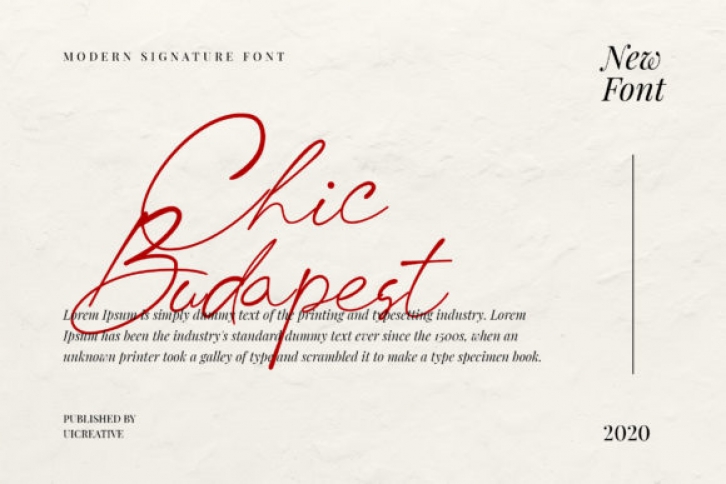
Chic Budapest is a cursive and thin lettered script font. It is defined by smooth curves and is perfect for fashion branding or editorial designs. Add it confidently to your projects, and you will love the results.